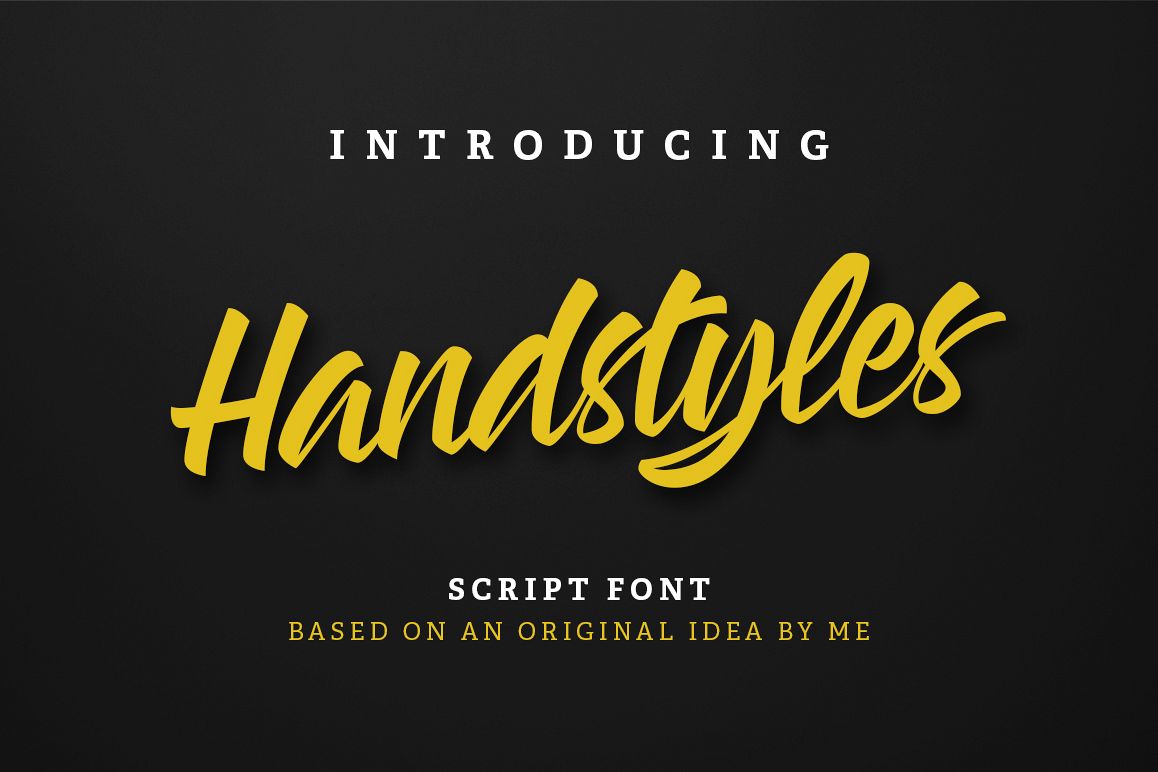
Handstyles
is a Script Font based on an original idea. It is an opentype font and suitable
for any Graphic Designs such as T-shirt and Poster Design, Branding materials,
Logo and all Stationery packages, and for Photography with some texts or quotes
inside it.